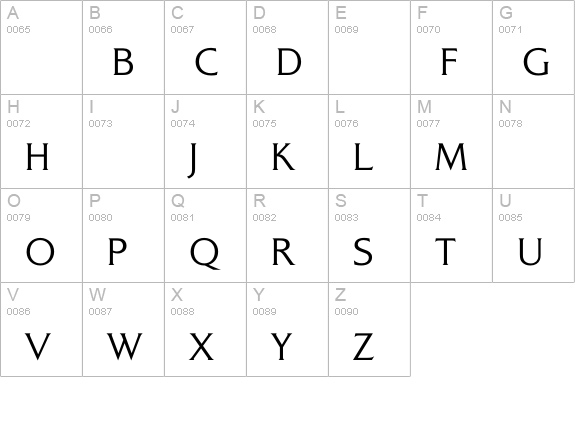
AlexonLight Font Details
AlexonLight is a modern and elegant font that exudes sophistication and style. Its sleek lines and graceful curves make it perfect for a wide range of design projects, from branding to editorial layouts. The light weight of the font adds a sense of delicacy and refinement, making it ideal for conveying a sense of elegance and luxury. What sets AlexonLight apart is not only its visual appeal, but also the fact that it is available for free download at FontsMarket.com. This means that you can access this stunning font without any cost, allowing you to elevate your designs without breaking the bank. Whether you're working on a professional project or a personal creative endeavor, AlexonLight is sure to add a touch of sophistication and flair to your work. Download it today and see the difference it can make in your design projects.